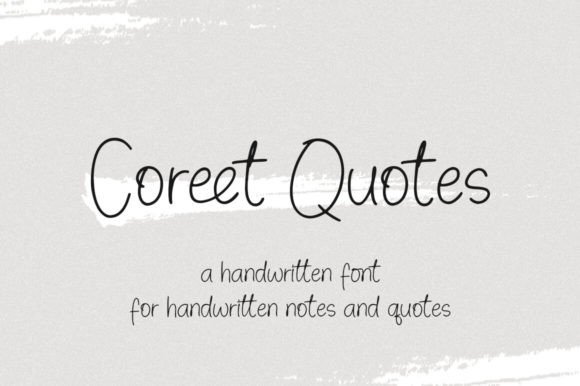
Step into the world of Coreet Quotes, a script font family that's the epitome of elegance and creativity. Its delicate strokes and fluid curves will transform your words into captivating works of art.
Unleash your inner artist and let Coreet Quotes paint a picture of beauty in your designs. With its charming and approachable style, it's the perfect choice for adding a touch of whimsy and delight to any project. Let your words flow with grace and finesse, leaving a lasting impression on your audience.
This font is meticulously crafted to suit a variety of projects, from enchanting wedding invitations and heartfelt greeting cards to captivating social media posts and trendy branding materials. Its versatility knows no bounds, allowing you to explore different styles and express your creativity in countless ways.
Coreet Quotes' true beauty lies in its ability to evoke emotions and connect with your audience on a deeper level. Its intricate details and flowing lines create a sense of intimacy and warmth, drawing readers into your message. Whether you're sharing a heartfelt quote, promoting a special event, or simply adding a touch of elegance to your everyday correspondence, Coreet Quotes has the power to elevate your words and make them truly unforgettable.
Immerse yourself in a world where words become art, where every letter dances across the page with grace and charm. With Coreet Quotes, you'll discover a world of endless possibilities, where your creativity knows no limits. Experience the beauty of written expression and let your words take center stage.